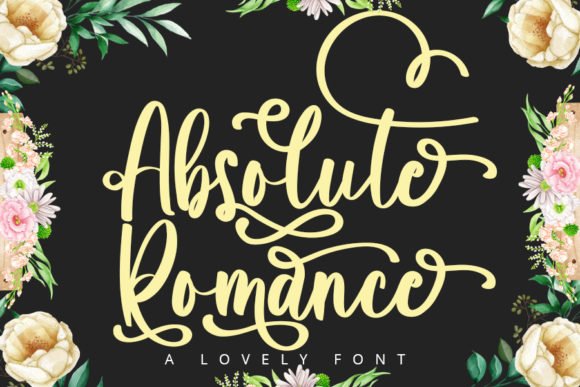
The Art of Romance: Elevate Your Design with Absolute Romance Font
Have you ever found yourself lost in a sea of words, searching for the perfect font to convey the essence of a love letter or a wedding invitation? It’s that moment when the right font can make all the difference, elevating your design from ordinary to extraordinary. For designers, finding the perfect font can be a daunting task, but what if we told you that we’ve discovered a gem that will make your heart skip a beat?
Meet Absolute Romance Font, an elegant script font that embodies the perfect blend of classic calligraphy and modern sophistication. With its balanced and varied strokes, this font is designed to add a touch of romance to your projects, making it an absolute must-have for designers who want to create breathtakingly beautiful designs.
Key Features of Absolute Romance Font
- Font Family: Absolute Romance Font is a beautiful, elegant script font.
- Unique Characteristics: Features flowing connections, swashes, and subtle flair, making it perfect for romantic and elegant designs.
- Language Support: Supports a wide range of languages, including Latin-based languages and some Cyrillic and Greek scripts.
- Font Style: Comes in 2 font styles: Regular and Italic, offering versatility for various design needs.
Designer Review: Absolute Romance Font
As a designer, I was excited to dive into the Absolute Romance Font and see what it had to offer. ✨ The font’s romantic, elegant vibe is perfect for wedding invitations, anniversary cards, and other special occasions. The font’s clean lines and soft curves create a beautiful, sophisticated look that’s sure to impress.
One of the standout features of the Absolute Romance Font is its versatility. ✨ It’s available in a range of weights, from light to bold, making it easy to customize to your needs. Additionally, the font is highly legible, even at small font sizes, making it a great choice for body text as well as headlines.
- ⚠️ Limited language support: The font only includes support for Latin-based languages, which may limit its use for designers working on projects with non-Latin scripts.
- ⚠️ Limited character set: The font’s character set is relatively small, which may make it difficult to find the specific characters you need for certain projects.
Overall, I’m impressed with the Absolute Romance Font. While it has some limitations, its elegant design and versatility make it a great choice for designers looking to add a touch of romance to their projects. With some careful planning and customization, this font is sure to become a go-to choice for many designers.
For best results, use the Absolute Romance Font in a romantic or whimsical context, such as wedding invitations, love letters, or Valentine’s Day designs.
Experiment with different font sizes and styles to create a visually appealing design.
Love letters and romantic cards
Valentine’s Day designs and gifts
Whimsical and romantic branding